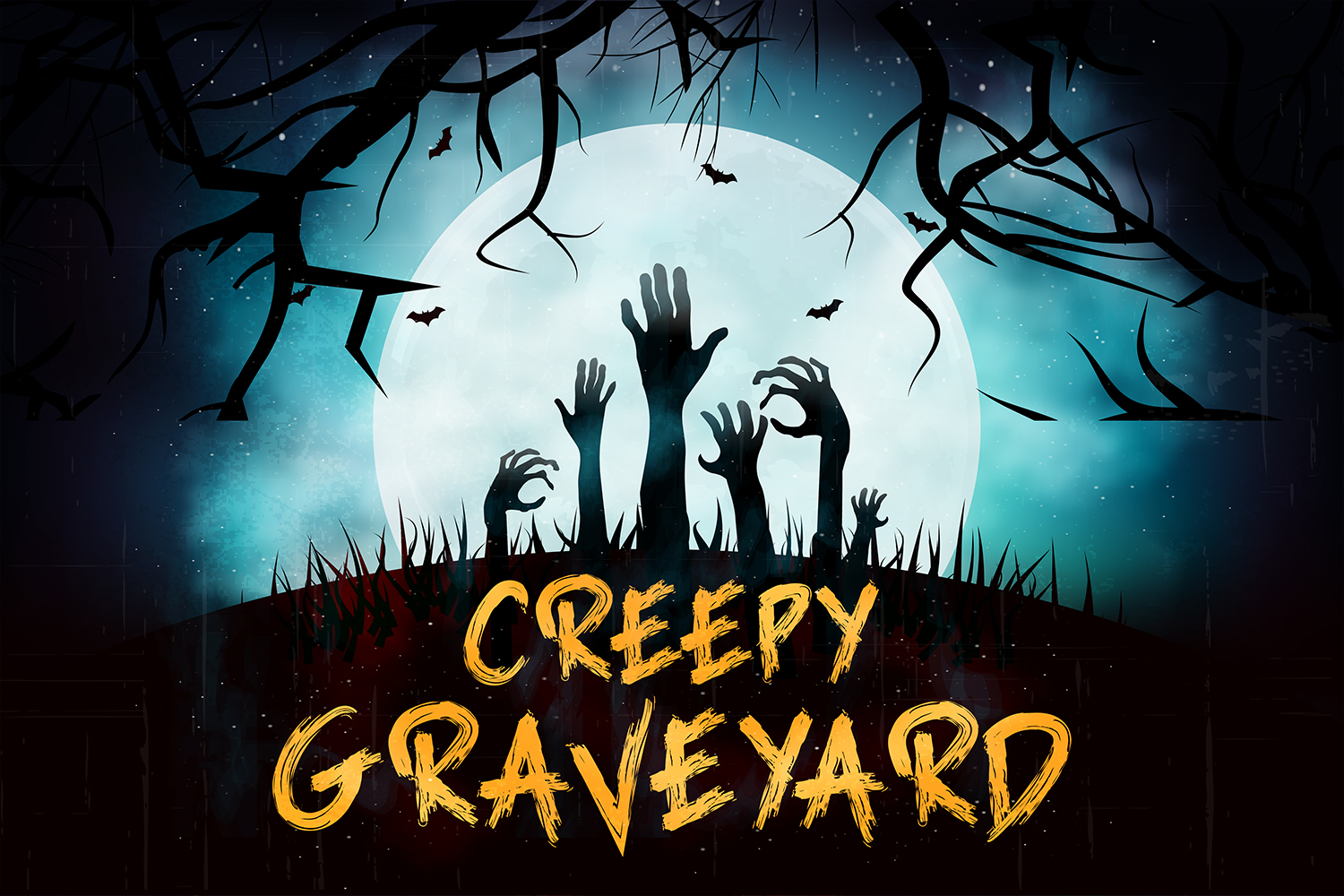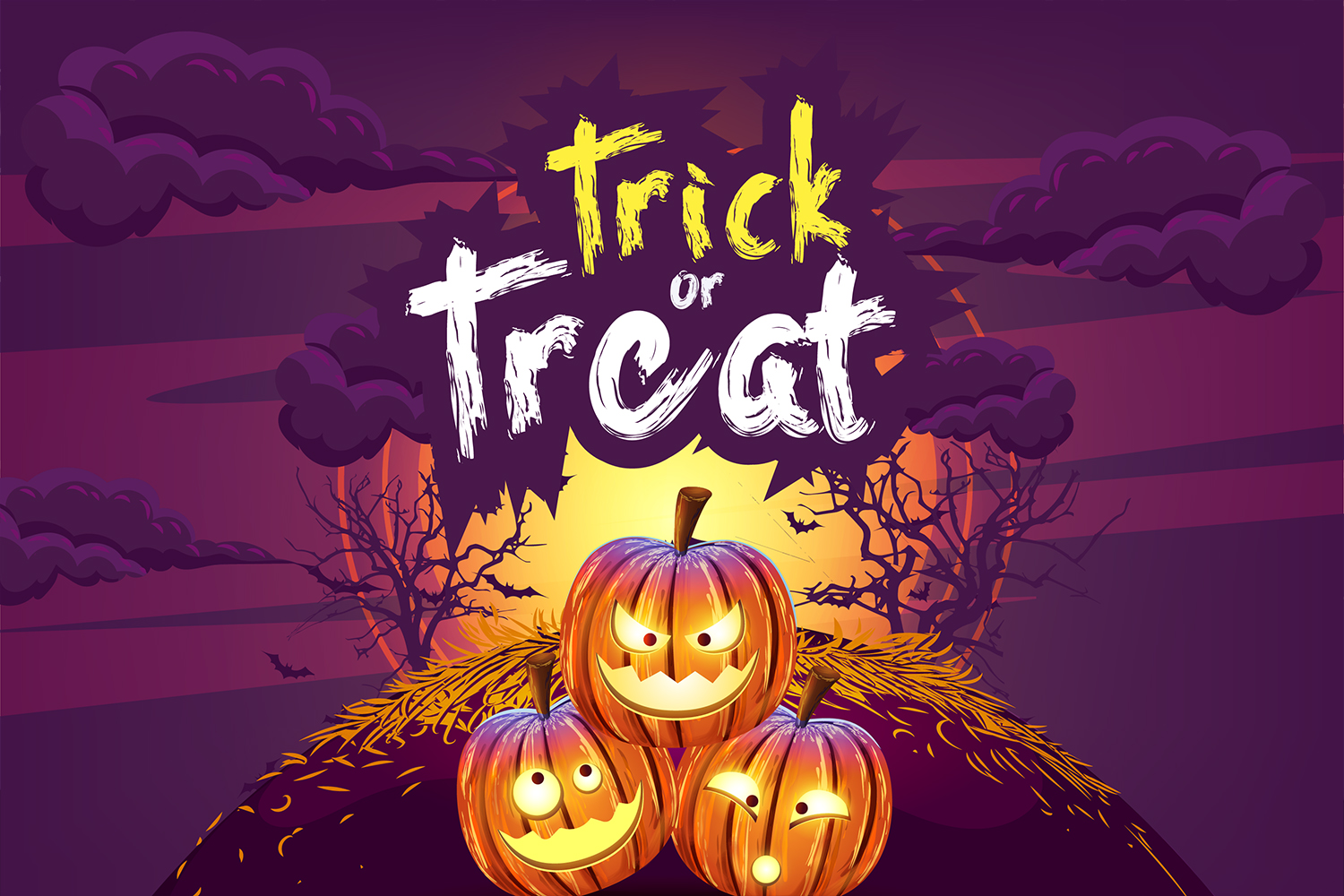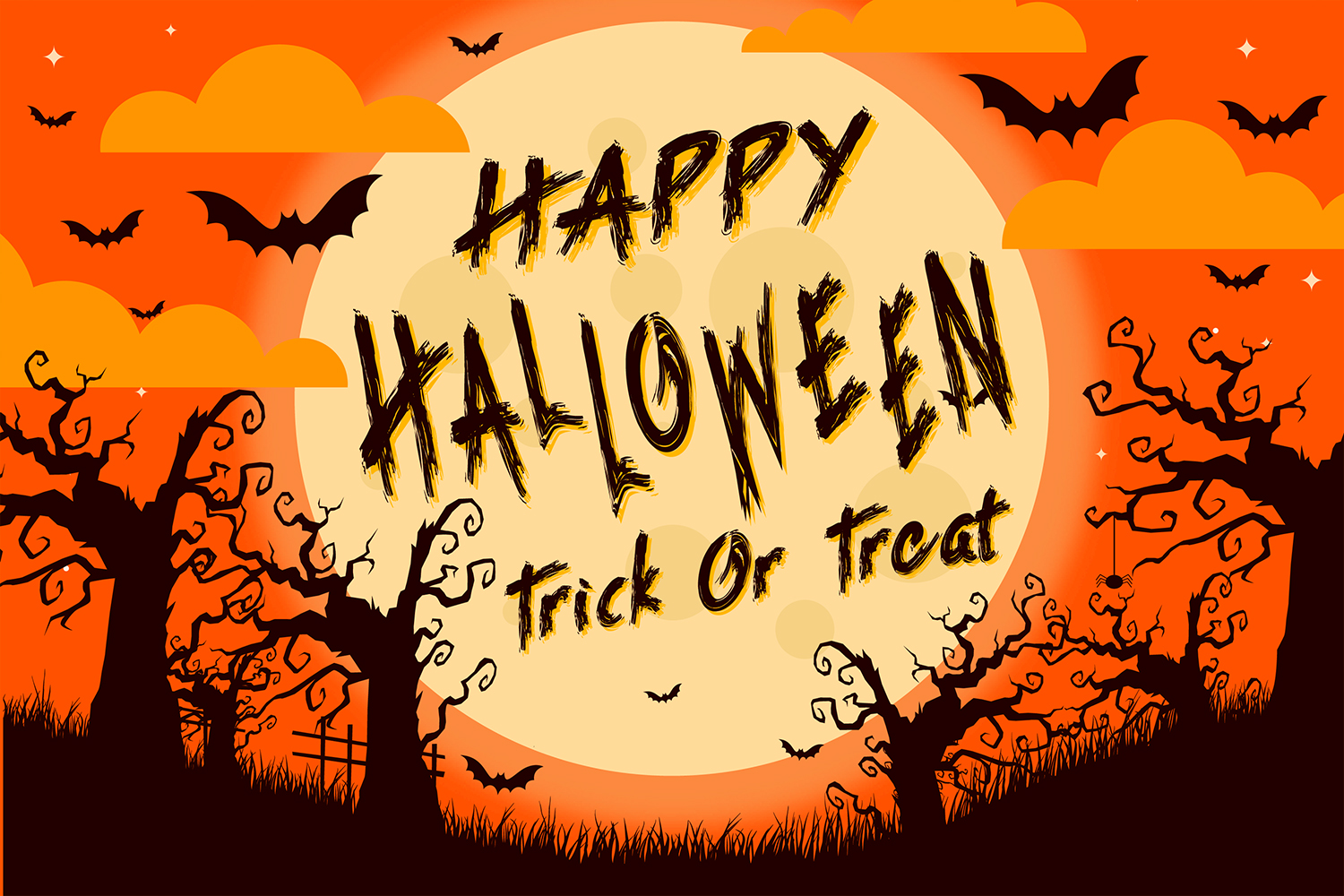
The Grim Reaper Free Font
The Grim Reaper Free Font is very suitable for Logotype, heading, cover, poster, logos, quotes, product packaging, header, merchandise, social media & greeting cards, and all your other projects that need handwriting taste and spooky-themed craft. This free typeface was designed by the talented Nahar Studio. If you like it don’t forget to check out the full version.